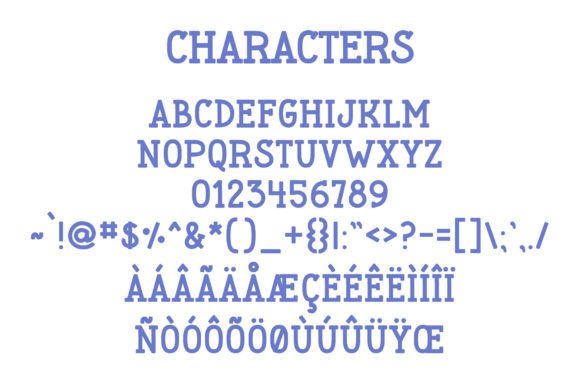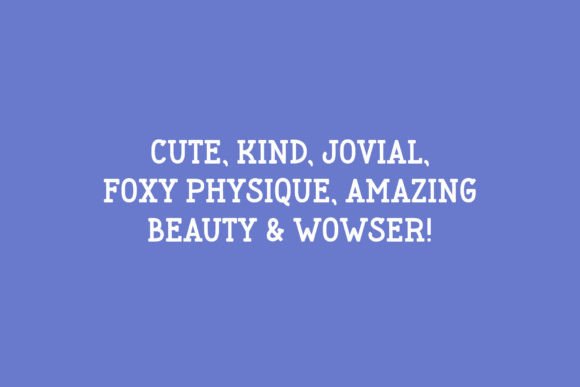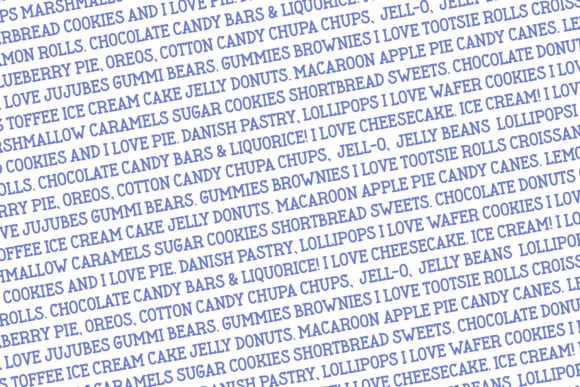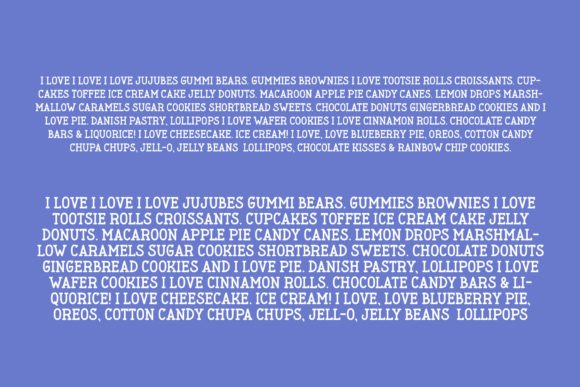
Good Times Font: Elevate Your Designs with Classic Sophistication and Modern Flair
In the world of typography, fonts play a crucial role in conveying the tone and personality of a design. For designers and crafters seeking a typeface that exudes elegance, professionalism, and a touch of modernity, Good Times Font is an excellent choice. This simple yet sophisticated serif font has been gaining popularity for its unique blend of classic and contemporary design elements, making it perfect for a wide range of projects.
What is Good Times Font?
Good Times Font is a modern serif font that boasts clean lines, minimalist style, and a classic aesthetic. Its design combines the timeless sophistication of traditional serif fonts with the simplicity and elegance of modern typography. This font is ideal for designers who want to add a touch of refinement and professionalism to their work, whether it’s for a logo, branding, packaging, or editorial design.
Key Features of Good Times Font
So, what makes Good Times Font stand out from other typefaces? Here are some of its key features:
- Clean Lines: Good Times Font features clean, crisp lines that give it a modern and fresh look. The font’s lines are carefully crafted to ensure that they are smooth and even, making it perfect for digital and print designs.
- Minimalist Style: The font’s minimalist style ensures that it remains uncluttered and elegant, making it perfect for designs that require a touch of sophistication.
- Serif Details: Good Times Font features subtle serif details that add a touch of classic sophistication to the font. The serifs are carefully designed to be elegant and refined, making the font perfect for formal and informal designs.
- Versatility: Good Times Font is a versatile typeface that can be used for a wide range of projects, from logos and branding to packaging and editorial design.
Who Can Benefit from Good Times Font?
Good Times Font is perfect for designers, crafters, and businesses looking to elevate their designs with a touch of elegance and professionalism. Here are some of the professionals who can benefit from using Good Times Font:
- Graphic Designers: Graphic designers can use Good Times Font to create stunning logos, branding materials, and marketing collateral that exude sophistication and elegance.
- Crafters: Crafters can use Good Times Font to create beautiful and elegant designs for their handmade products, such as jewelry, crafts, and DIY projects.
- Business Owners: Business owners can use Good Times Font to create a professional and cohesive brand identity that reflects their values and personality.
Tips for Using Good Times Font
Here are some tips for using Good Times Font effectively in your designs:
- Pair it with Other Fonts: Good Times Font can be paired with other fonts to create a unique and visually appealing design. Try pairing it with a sans-serif font for a modern look or with another serif font for a classic aesthetic.
- Experiment with Font Sizes: Good Times Font can be used at various font sizes, from large headings to small body text. Experiment with different font sizes to find the perfect balance for your design.
- Use it for Headings and Titles: Good Times Font is perfect for headings and titles, where its elegant and refined design can shine.
Good Times Font is a simple yet sophisticated serif font that combines classic elegance with modern flair. Its clean lines, minimalist style, and subtle serif details make it perfect for designers and crafters seeking to elevate their designs with a touch of professionalism and sophistication. Whether you’re creating a logo, branding materials, or editorial design, Good Times Font is an excellent choice. With its versatility and timeless design, Good Times Font is sure to become a staple in your font collection.